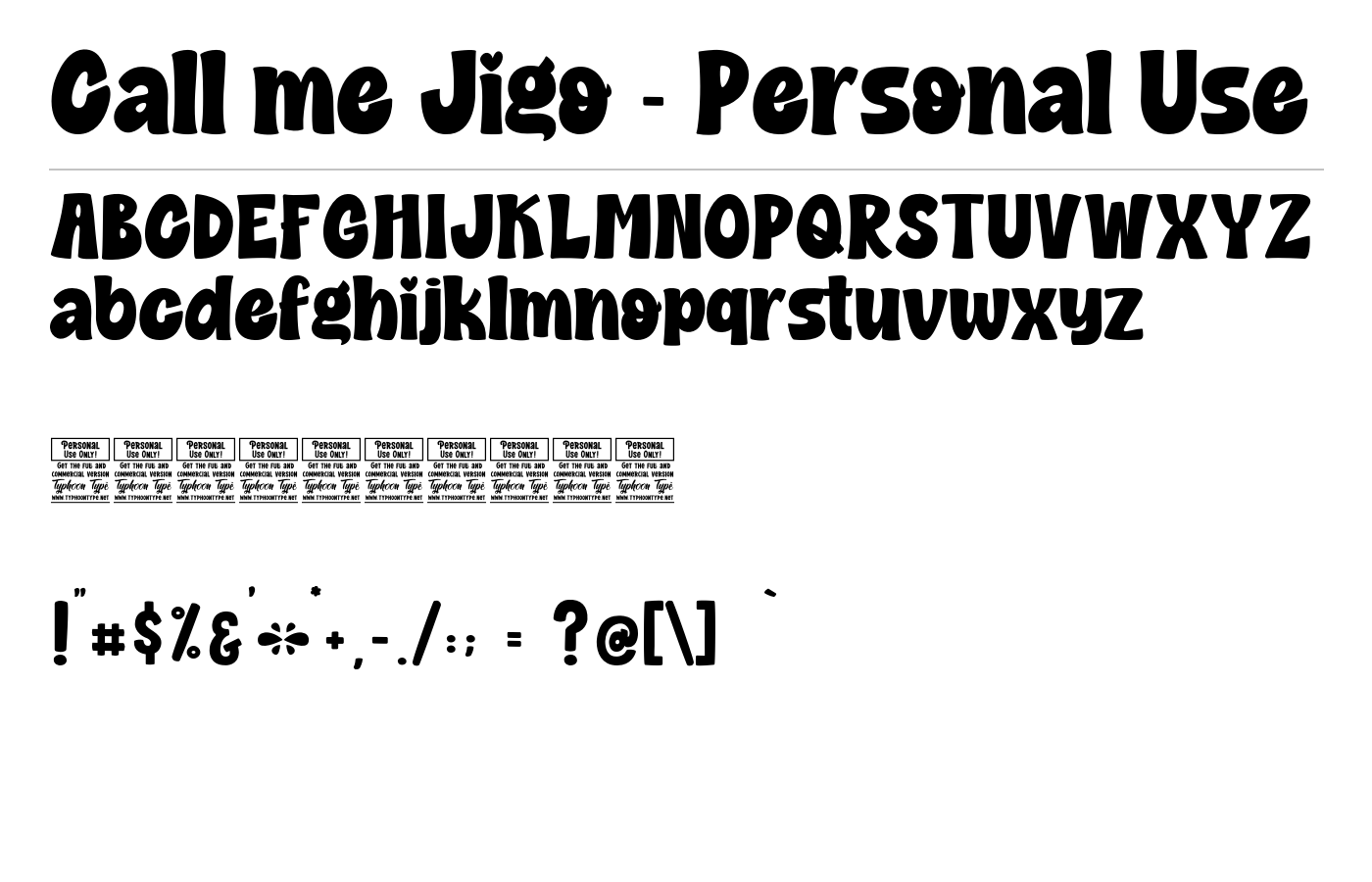
Call me Jigo is a bold, playful sans serif font with a hand-drawn feel, featuring rounded, slightly irregular letterforms that add a friendly and casual vibe. Its chunky weight and uneven strokes make it ideal for fun, eye-catching headlines or creative projects needing a lively and approachable personality. This font works great for branding, posters, and any design seeking a warm, informal touch.
Call me Jigo - Personal Use Font
About Call me Jigo - Personal Use Font